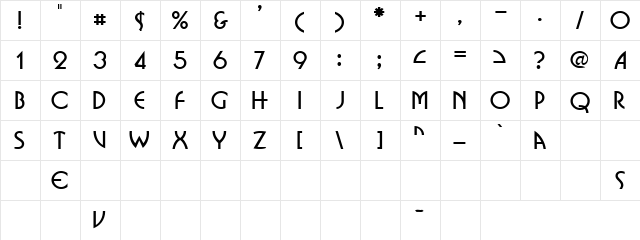
Fast Lane 1 Regular
Design Context for Fast Lane 1 Typeface
Fast Lane 1 takes a measured approach to typography — its balanced proportions and neutral character make it a reliable workhorse for both digital and print work.